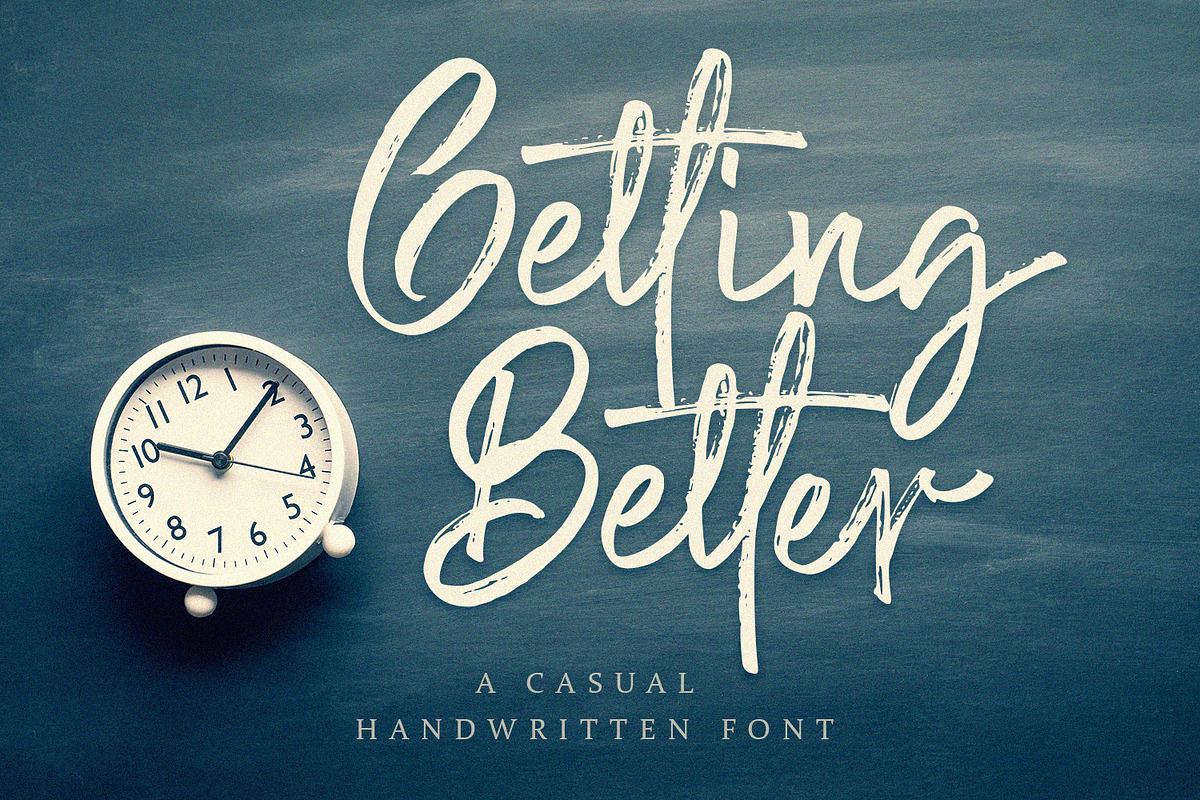
You must purchase this font for commercial use. However, you can download Getting Better – Handwritten Font Free Download for testing purposes. Getting Better is a smooth, stylish handwritten font that exudes warmth, authenticity, and a touch of modern charm. Ideal for personal branding, social media posts, product packaging, greeting cards, and creative blog headers, this font gives your designs a relaxed yet professional vibe.
Crafted with natural curves and a flowing rhythm, Getting Better feels like a genuine signature—making it perfect for projects that need a personal, heartfelt touch. Its clean lines and balanced spacing ensure readability while still retaining the character of a handwritten script. Whether you're designing logos, inspirational quotes, or lifestyle content, Getting Better – Handwritten Font Free Download gives you the chance to explore its creative possibilities. Be sure to purchase the proper license before using it for commercial purposes. Download Getting Better – Handwritten Font Free Download today and add a modern, handwritten flair to your designs.